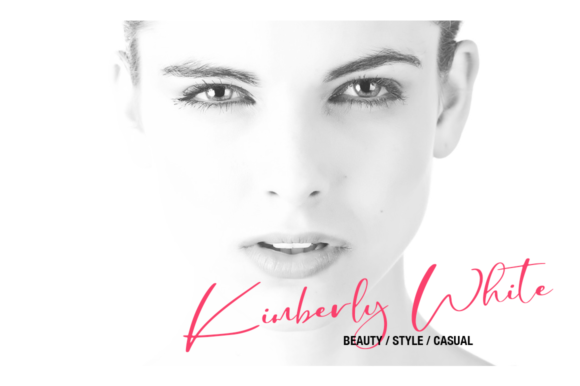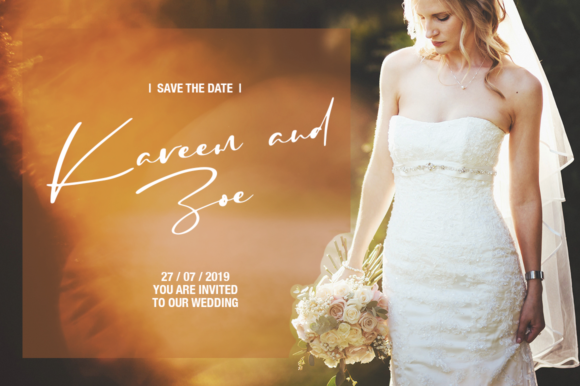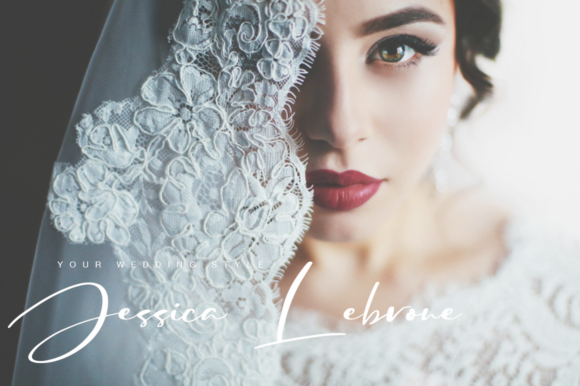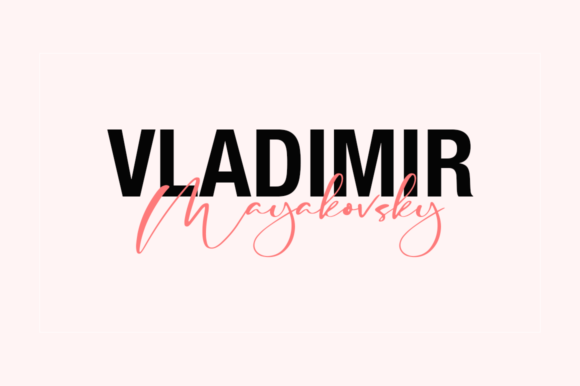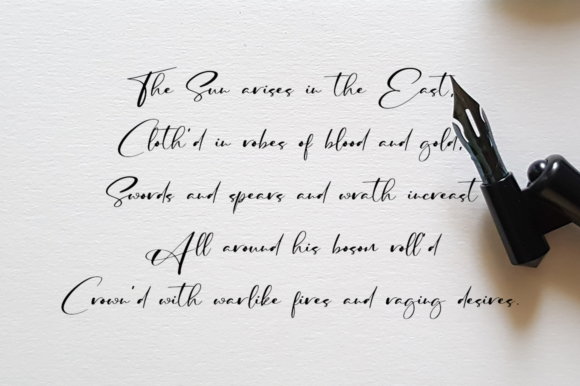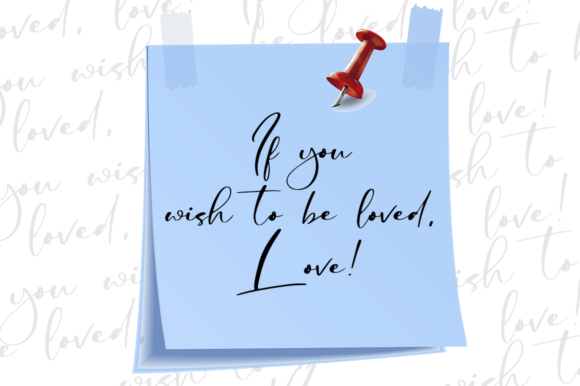
HomeScript FontsRed Wings Font Script Fonts Red Wings Font FacebookXPinterestWhatsApp Red Wings Font Poster 2 Red Wings Font Poster 3 Red Wings Font Poster 4 Red Wings Font Poster 5 Red Wings Font Poster 6 Red Wings Font Poster 7 About Red Wings Font Red Wings is an elegant and easy handwritten font with an authentic feel. Get inspired by its beautiful swashes! DOWNLOAD ON CREATIVE FABRICAThis font is sold and delivered by Creative Fabrica. Font Canyon may earn a commission if you buy through this link. People also explored Sozzled Font Golden Moment Font Bagero Font California Font Deeps Font Actinide Font Almeyra Font Terrazzo Font Jack Simba Font 304 0 TagsRed Wings Font Previous articleRamores FontNext articleBagman Font LEAVE A REPLY Cancel reply Comment: Please enter your comment! Name:* Please enter your name here Email:* You have entered an incorrect email address! Please enter your email address here Website: Save my name, email, and website in this browser for the next time I comment. Personal Use Free Samureix Personal Use Free Read more about this font Americana Personal Use Free Read more about this font Krait Personal Use Free Read more about this font Carnivals Personal Use Free Read more about this font BLOG Fonts That Capture the Spirit of New York City New York City is more than just a place—it’s an experience, a rhythm, a visual language... Top 7 Google Fonts Alternatives for Faster and Privacy-Friendly Web Design (2025) Transform Your Website: Elevate Your Typography with 7 Best Web Font Generators Exploring Font Trends